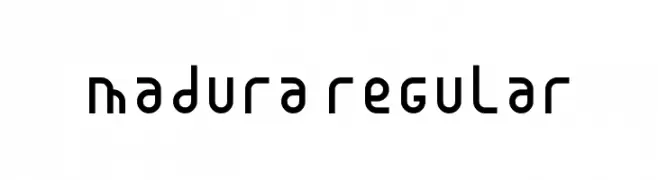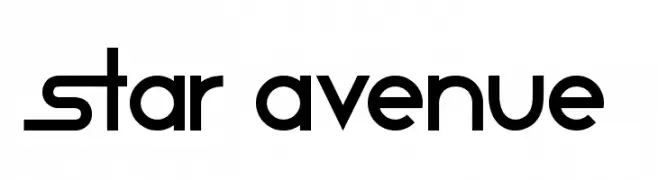
A modern, ultra-light sans-serif font with tall, narrow characters and consistent line weight.
A modern, geometric font with rounded edges and consistent strokes.
A bold, modern typeface with geometric structure and consistent stroke width.
A modern, geometric font with clean lines and consistent structure.